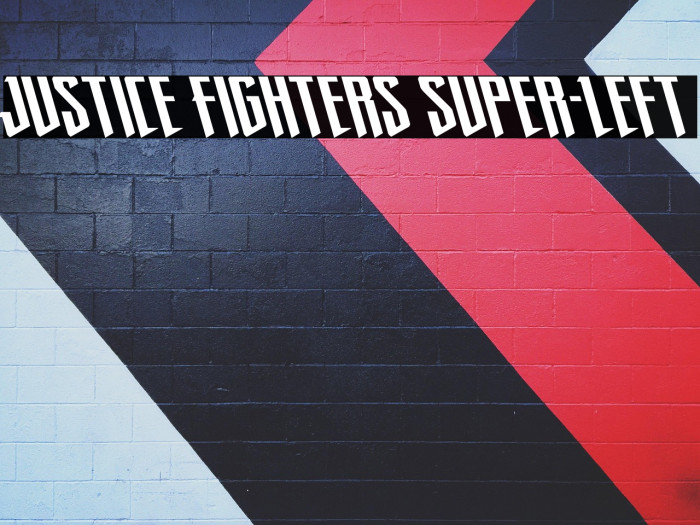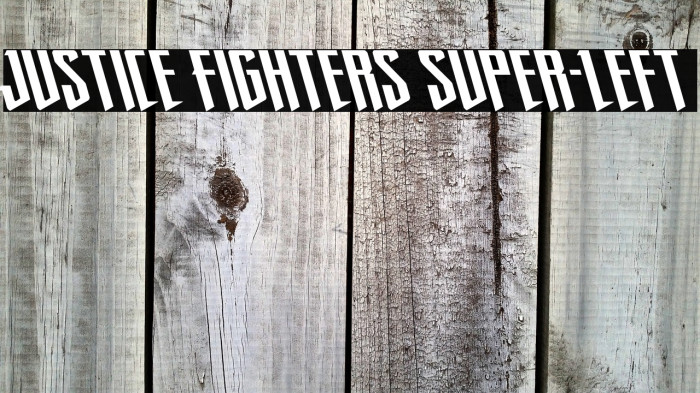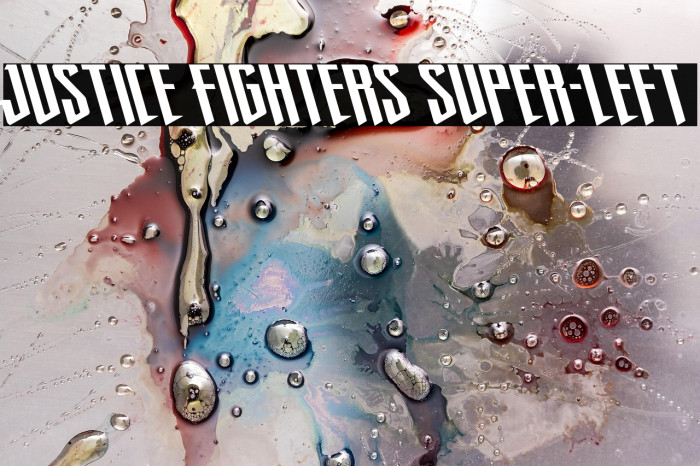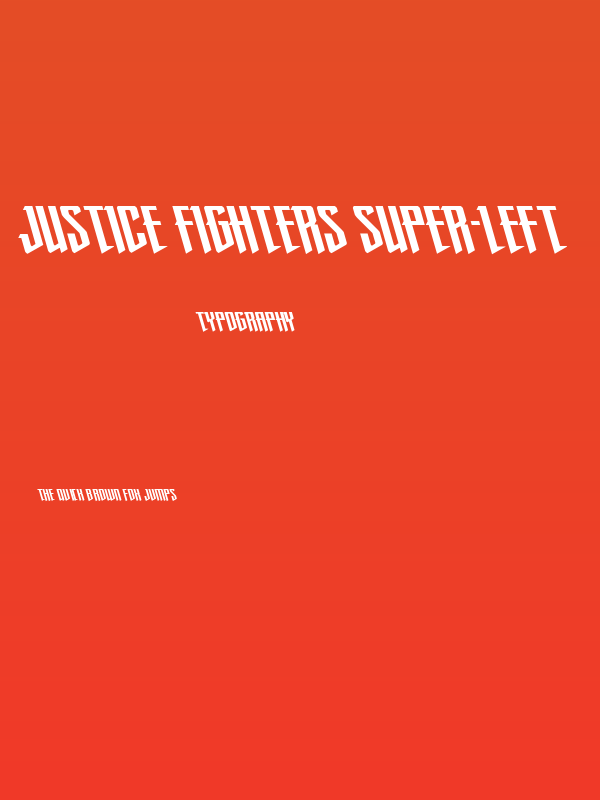
Justice Fighters Super-Left Font
Justice Fighters Super-Left Description
This font features a bold and dynamic design with a strong, angular appearance. The characters are slightly slanted, giving a sense of movement and energy. The strokes are thick and consistent, creating a powerful visual impact. The uppercase and lowercase letters maintain a uniform style, with sharp edges and a modern aesthetic. The numbers and special characters follow the same design principles, ensuring a cohesive look across all elements. This font is ideal for projects that require a bold statement and a contemporary feel.
| Proposed Projects | Ideal for posters, logos, video game titles, and comic book designs. |